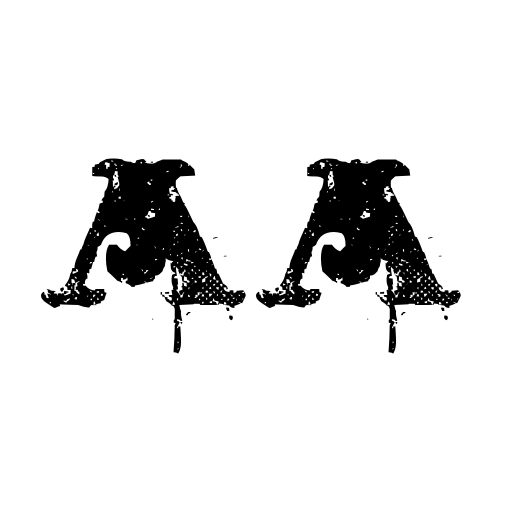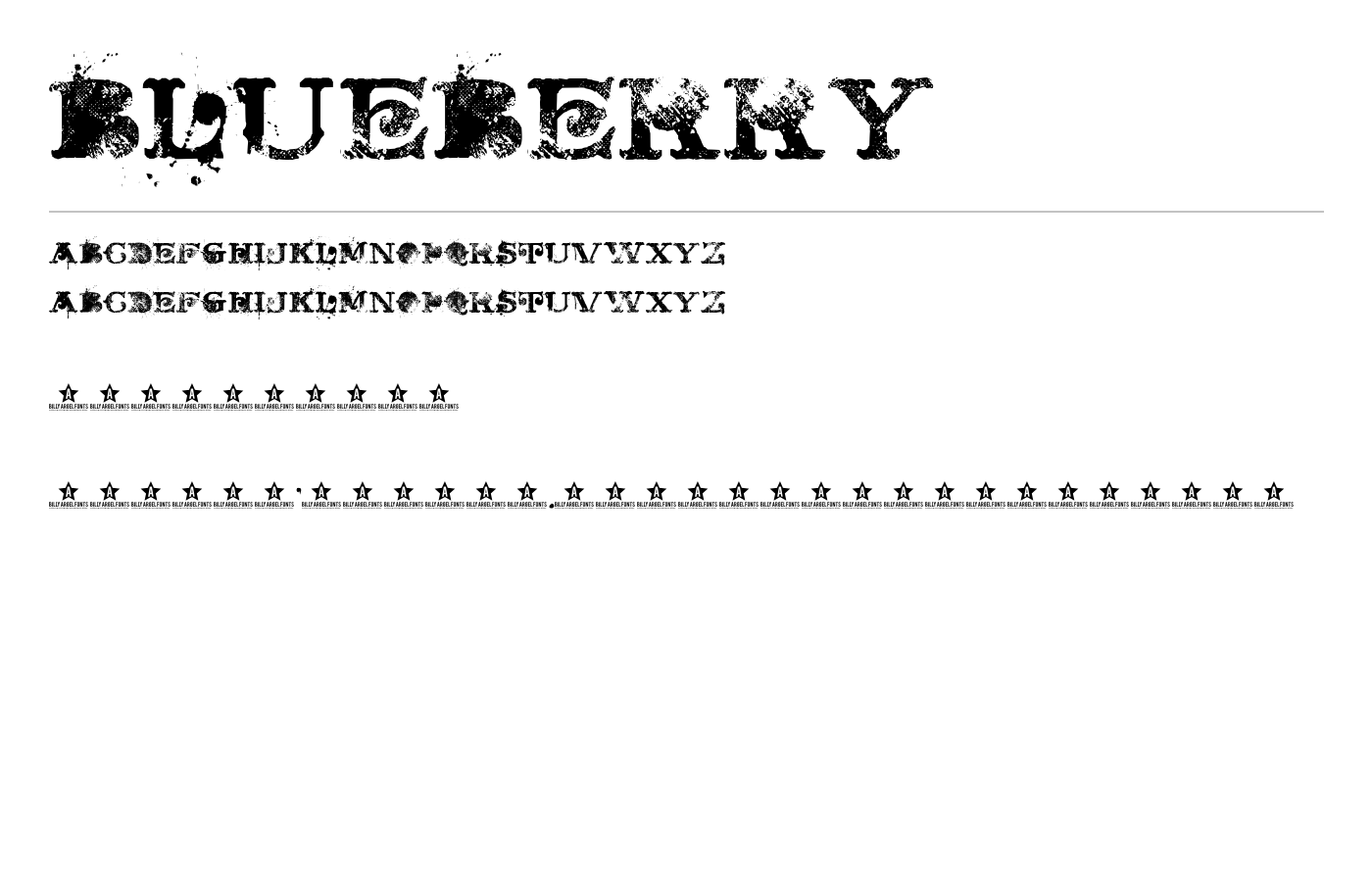
Blueberry is a bold slab serif font with a distressed, grungy texture that gives it a rugged and vintage vibe. Its strong, blocky letterforms paired with irregular ink splatters make it perfect for eye-catching headlines, posters, or branding that seeks a rebellious, handcrafted feel. This font works best in creative projects where a raw, edgy style adds personality and impact.
BLUEBERRY Font